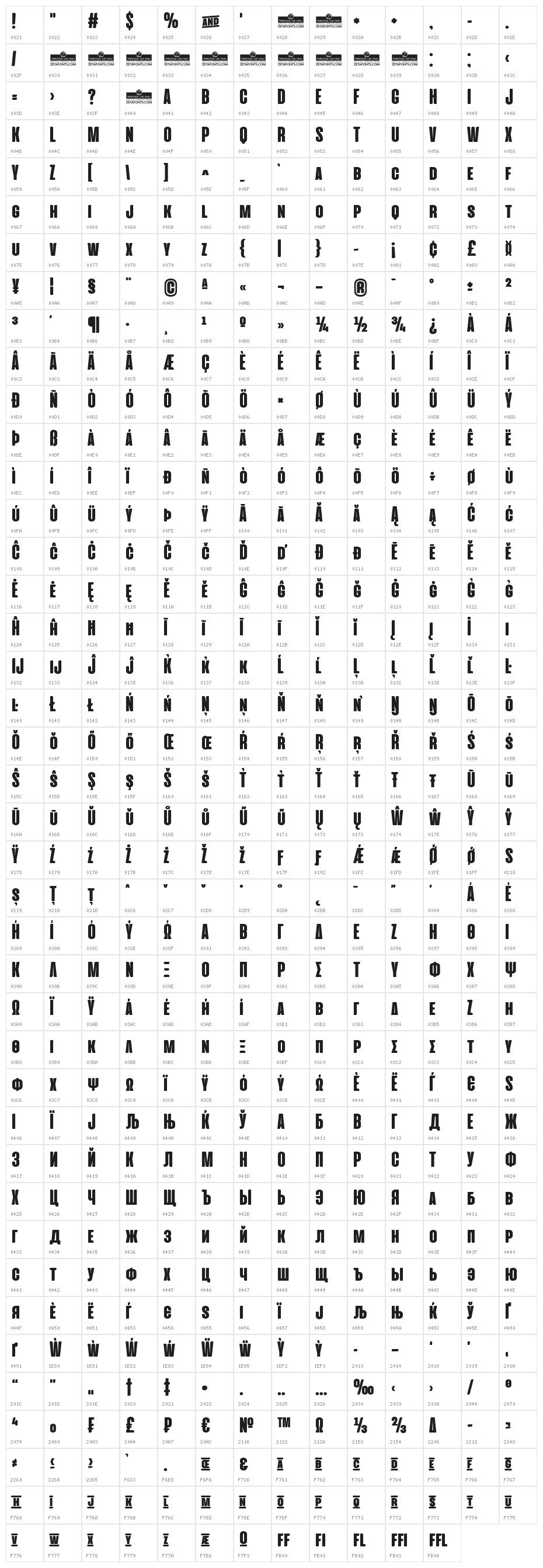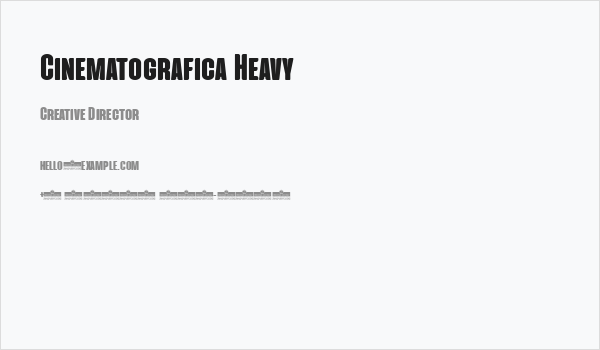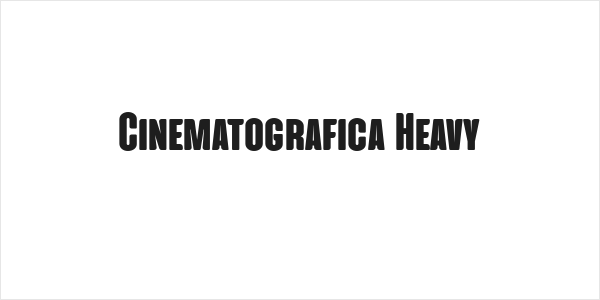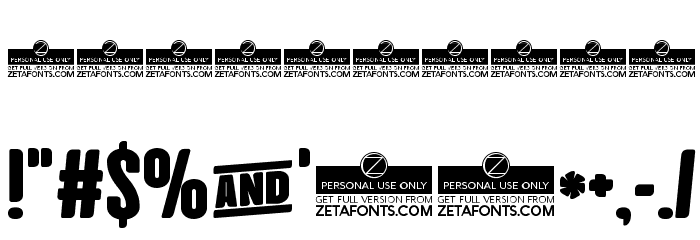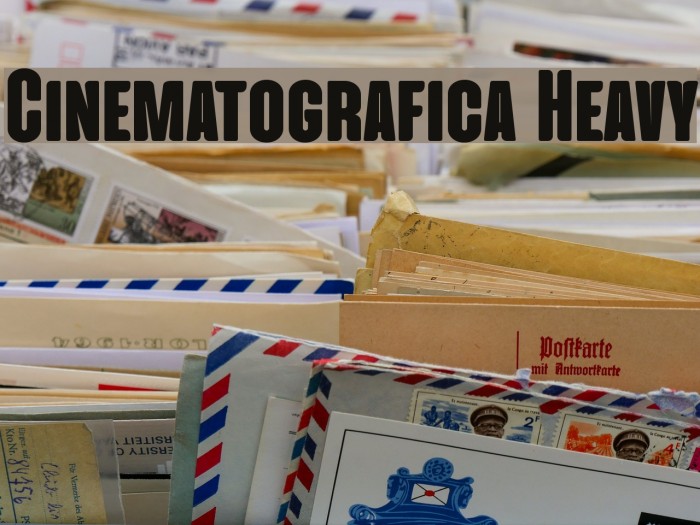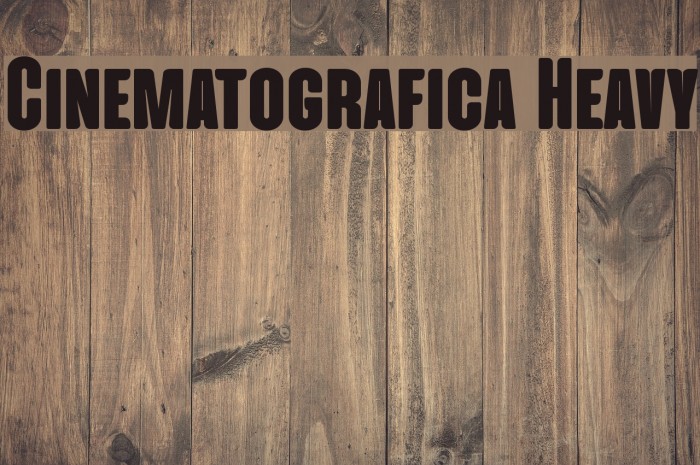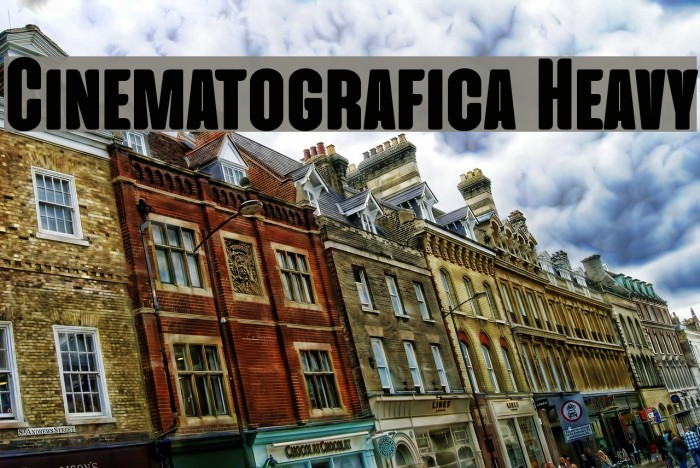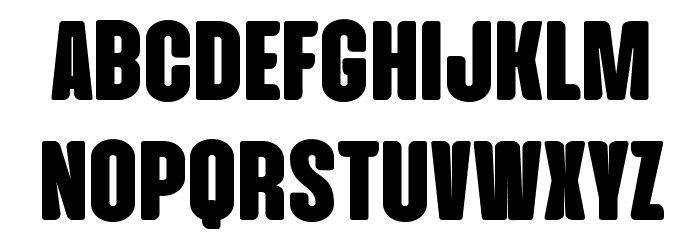
Cinematografica Heavy Font
Cinematografica Heavy Description
This font features a bold and heavy style with a strong presence, making it ideal for impactful headlines and attention-grabbing designs. The characters are uniformly wide, with a consistent stroke thickness that emphasizes its boldness. The uppercase letters are particularly striking, with a solid and robust appearance. The lowercase letters maintain the same weight, ensuring a cohesive look across different text cases. The numbers and special characters are equally bold, providing a uniform aesthetic throughout. This font's design is straightforward yet powerful, making it suitable for various creative projects.
| Proposed Projects | Ideal for posters, banners, logos, and any design requiring a strong visual impact. |